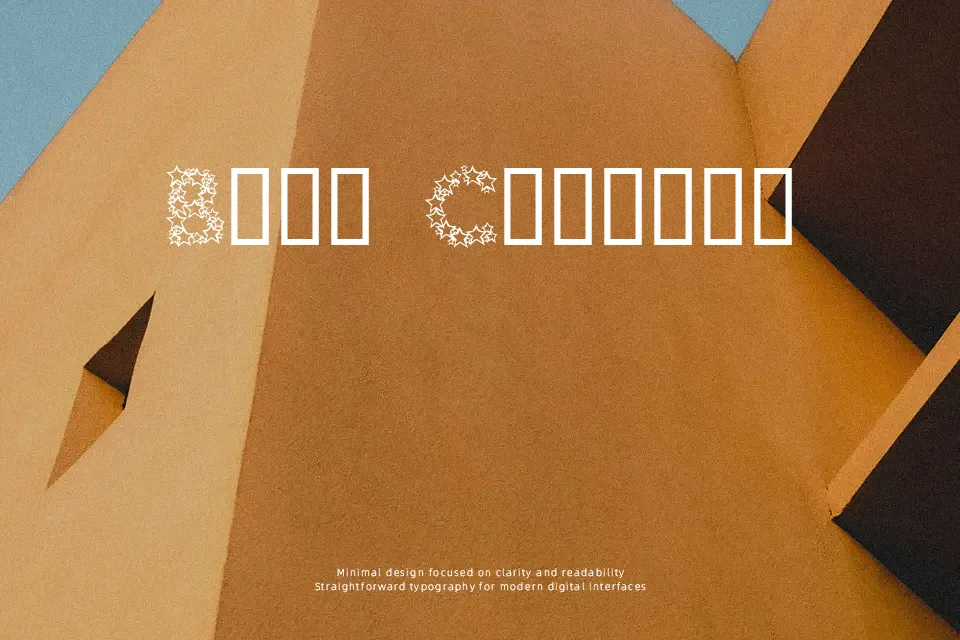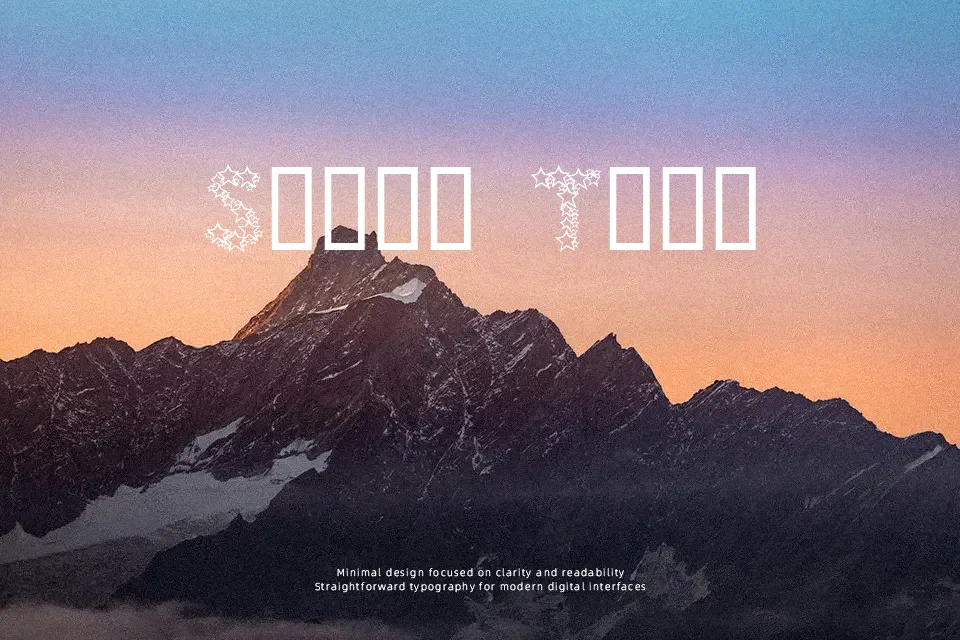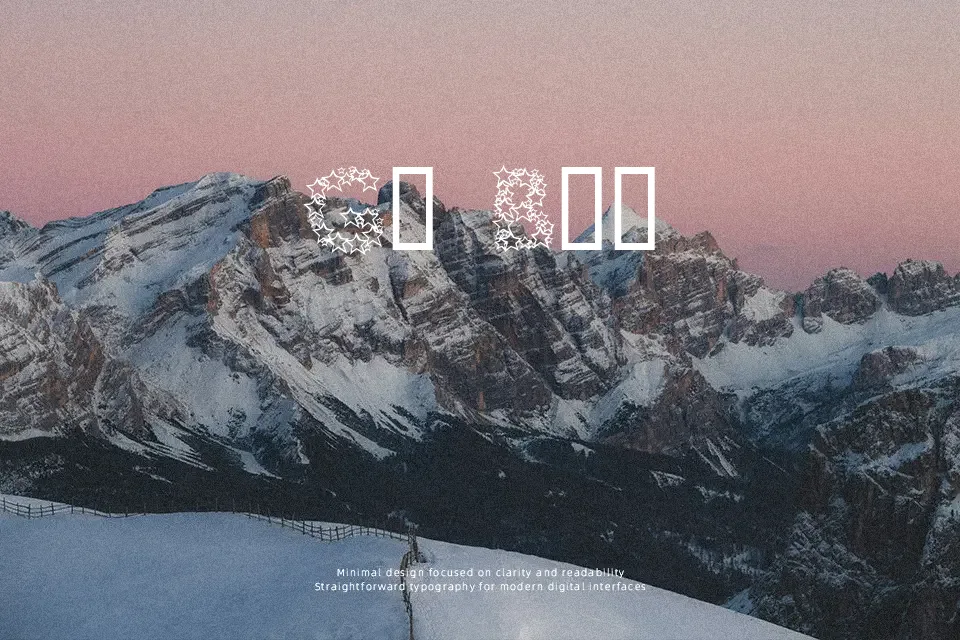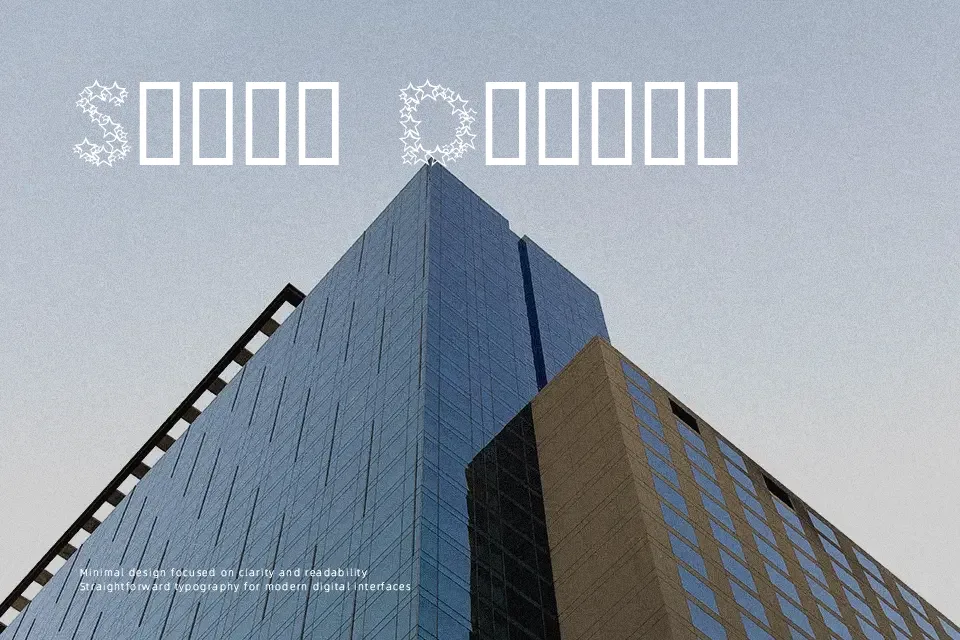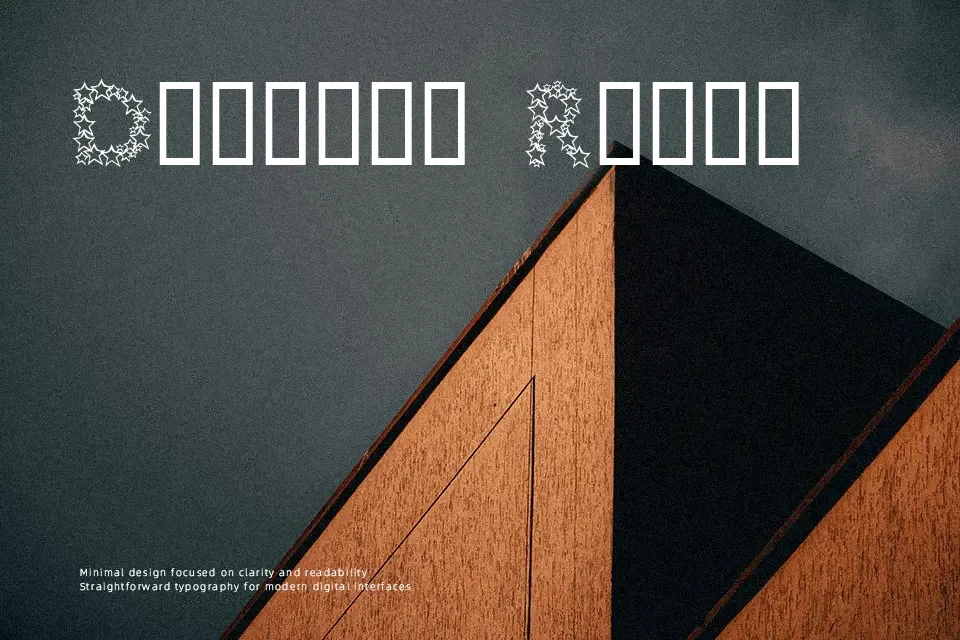
Bingo Star Font
Designed by Brain Eaters Font Co.
Bingo Star is a bold decorative typeface defined by its playful, star-themed visual elements, thick strokes, and dense structure. Created by Brain Eaters Font Co., this retro-inspired display font offers a distinct novelty appeal. The chunky, tightly spaced letterforms carry a solid presence, ensuring excellent visibility at large scales. It excels in high-impact scenarios requiring festivity, such as children’s event posters, playful advertising campaigns, and striking headlines. While bringing a fun-loving charm to creative projects, Bingo Star is not recommended for lengthy body text, formal corporate branding, or sophisticated editorial layouts. Its highly decorative nature can overwhelm readers and reduce legibility at smaller point sizes, making it best reserved for bold, singular design statements.
Festive poster headlines and event banners
Children’s entertainment and gaming graphics
Nostalgic or retro-themed advertising
Lengthy paragraphs or dense body text
Formal corporate branding and minimalist logos
Small-scale UI design or mobile screens
Perfect for advertising, gaming, and headline, with a creative and decorative style.